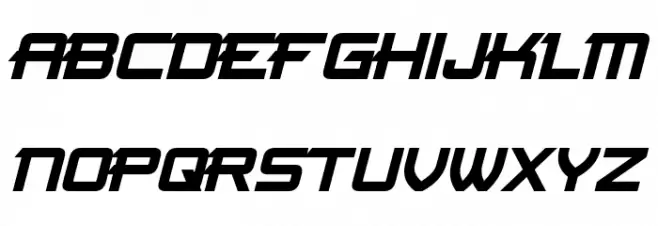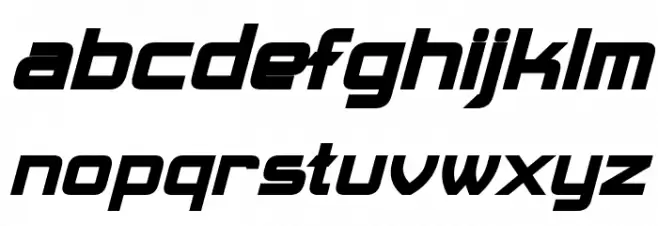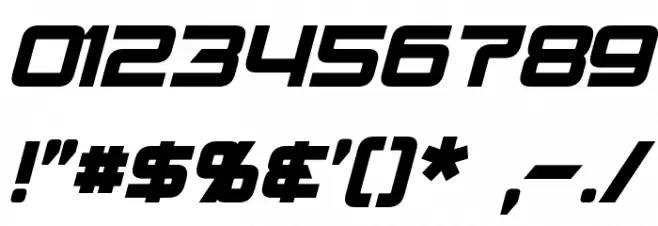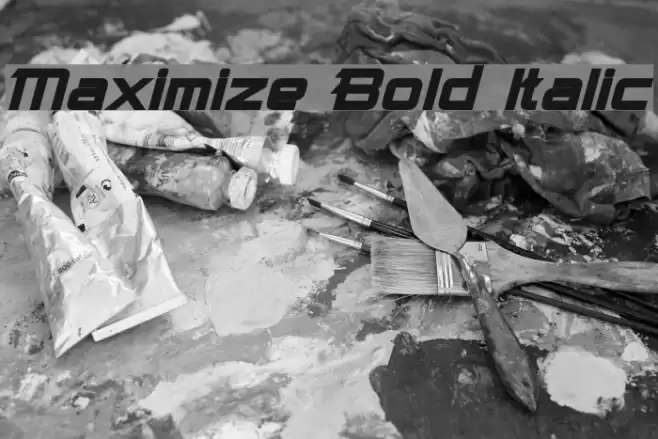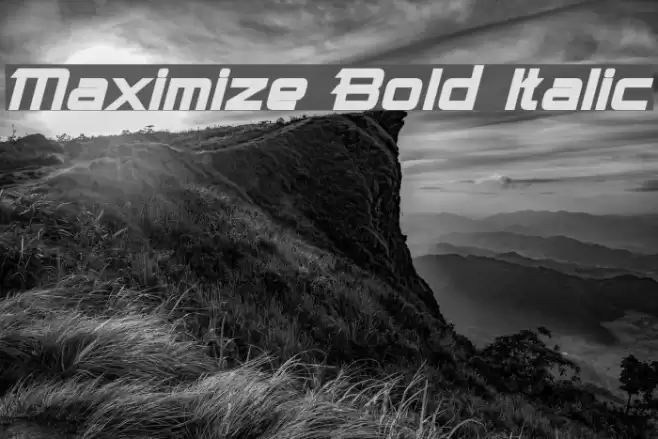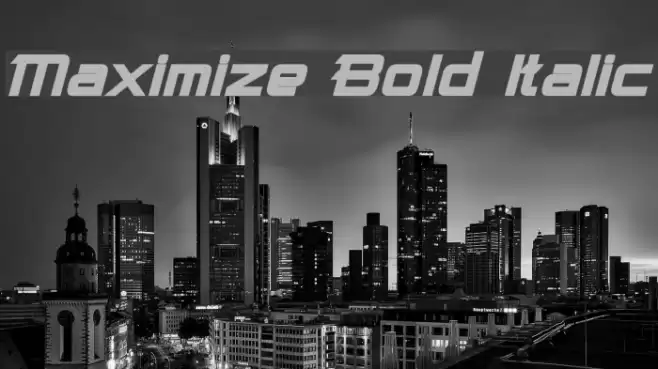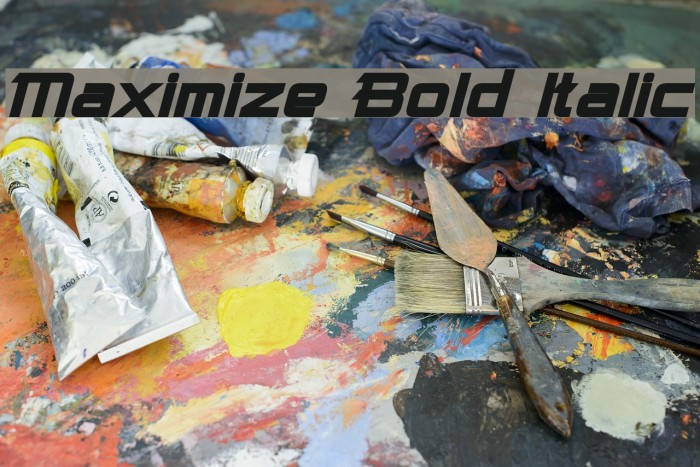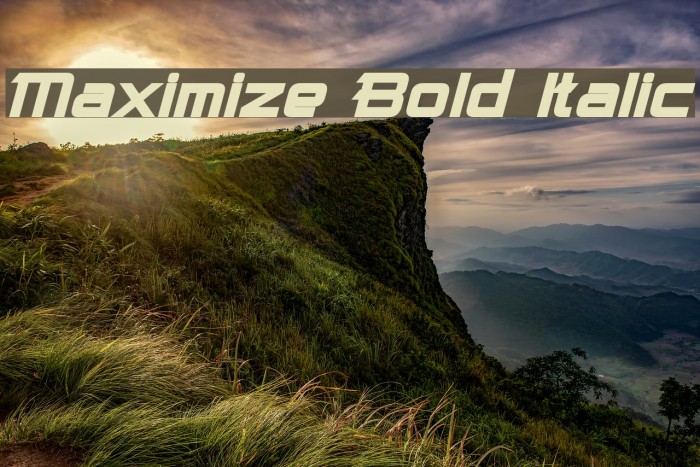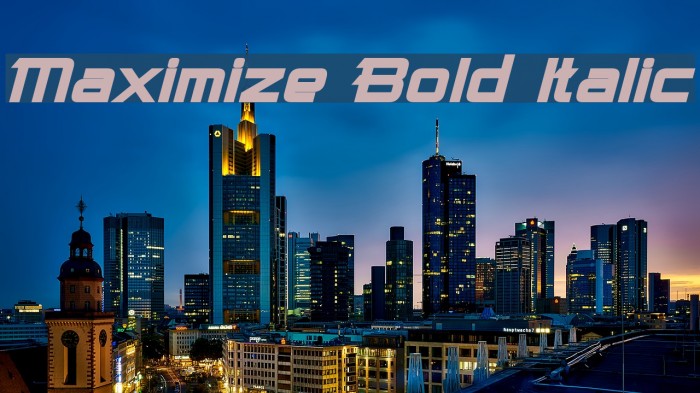
Maximize Bold Italic
This font features a bold and italicized style with a modern and dynamic appearance. The characters are slightly slanted, giving a sense of motion and speed. The strokes are thick and consistent, providing a strong visual impact. The design is clean and geometric, with sharp angles and a futuristic feel. The uppercase and lowercase letters maintain a uniform style, while the numbers and special characters complement the overall aesthetic. This font is ideal for projects that require a bold statement and a contemporary look.
A bold, italicized font with a modern, dynamic style.
- Proposed Projects: Ideal for branding, sports team logos, automotive designs, and tech-related projects.